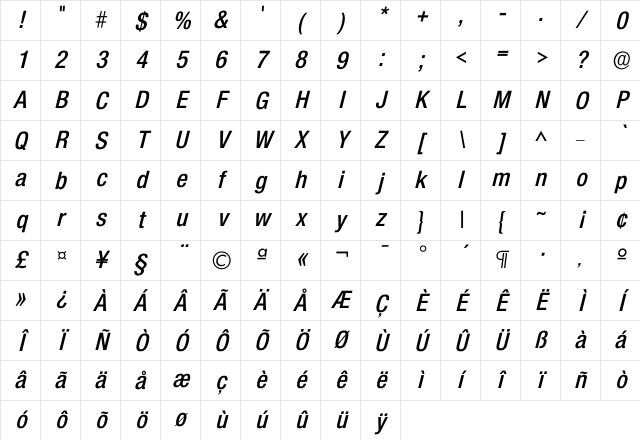
Complete Icolnova DemiBold glyph index. Displaying only characters natively supported by Icolnova DemiBold font.
Icolnova is a composed and adaptable typeface that performs quietly and consistently across a wide range of design contexts. Its bold stroke weight gives it real presence on the page.